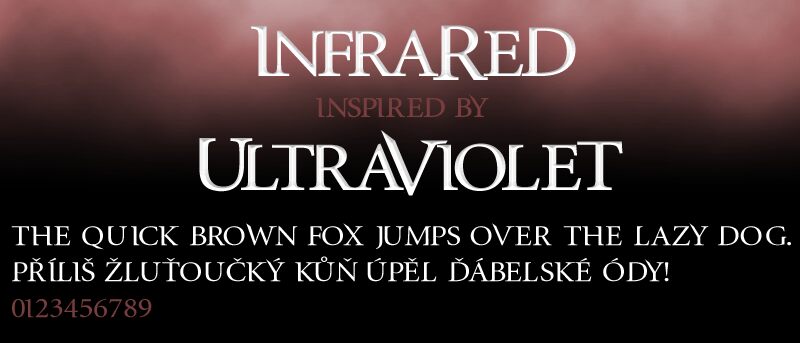
InfraRed ExtraBold by Zdenek Gromnica is a free high-contrast display serif with broad capitals and sharply cut details. Its thick verticals meet fine crossbars and tapered strokes, producing a dramatic silhouette that feels both formal and slightly unconventional. The shapes are compact and forceful.
Its fashion-editorial character makes it well suited to magazine covers and luxury branding, where the exaggerated stroke changes can echo tailored forms. It also belongs on theatrical posters and premium packaging, especially for products with a dark, sculptural visual direction. In publishing, the unusual cuts and oversized serifs can turn a masthead or section opener into a recognizable editorial signature.
Caps only. Available in four styles: Regular, Bold, ExtraBold, and Black.